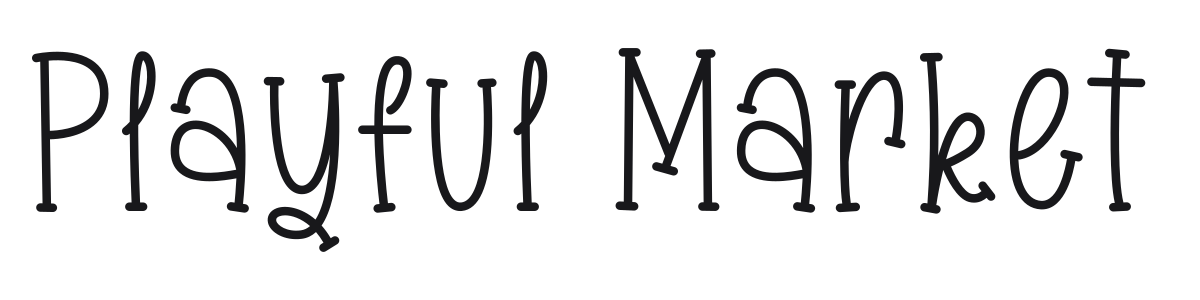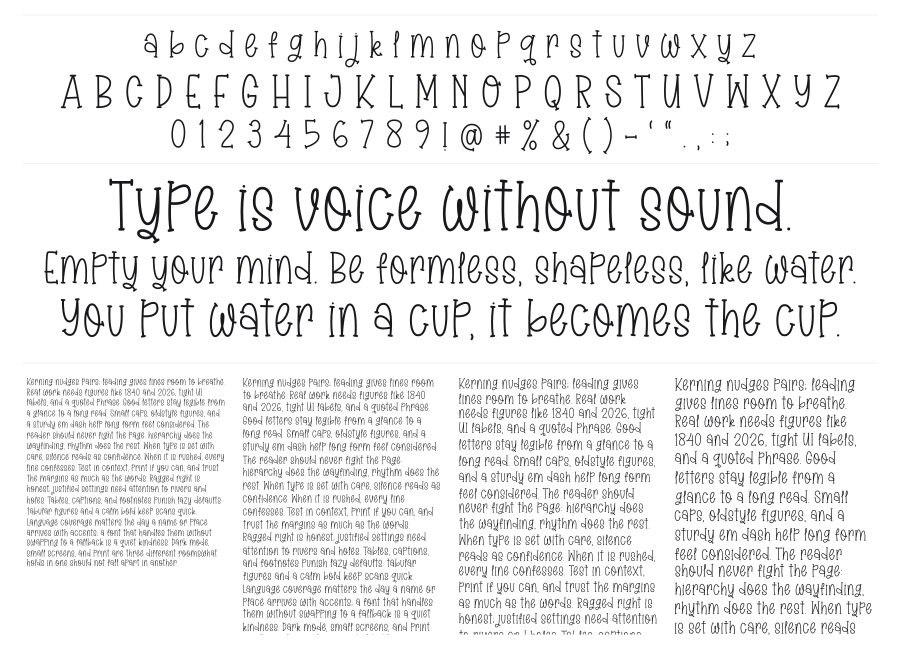
Playful Market
Playful Market is a quirky upright display serif with small club-tipped serifs and a hand-drawn, sign-painter charm. The narrow proportions and low stroke contrast keep it light and airy while the uneven character rhythm gives it an unmistakably artisanal feel. Fits naturally on farmer's market signage, children's branding, and any project that wants approachable handcrafted energy.